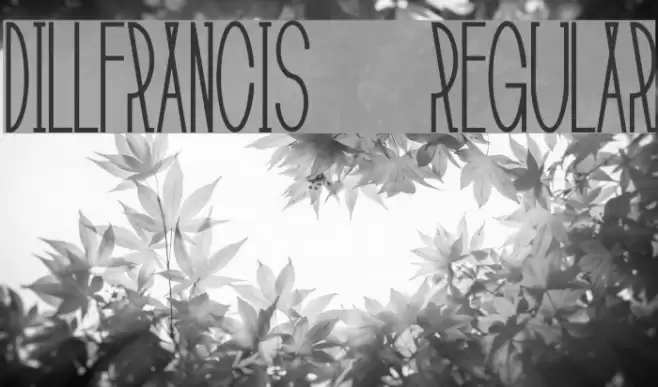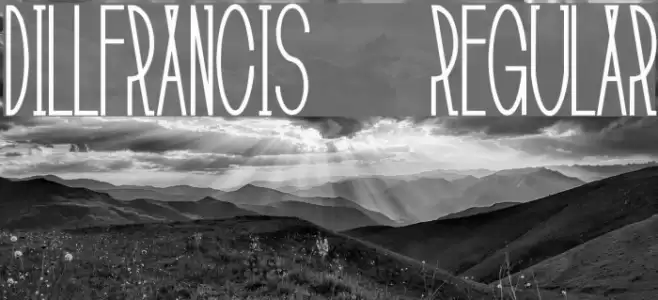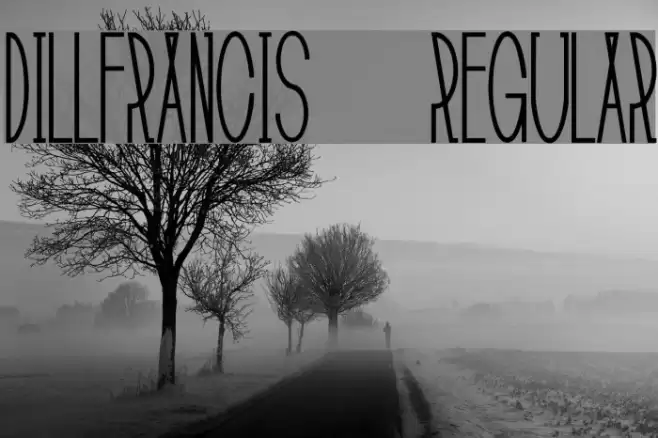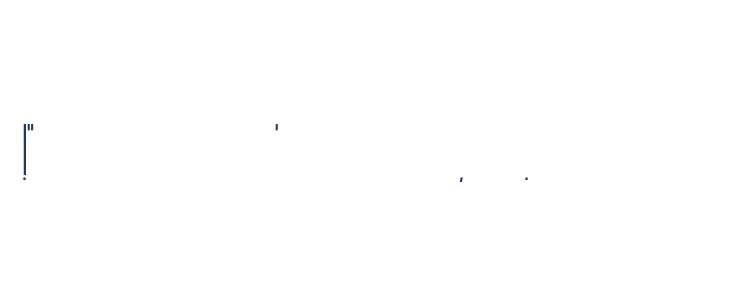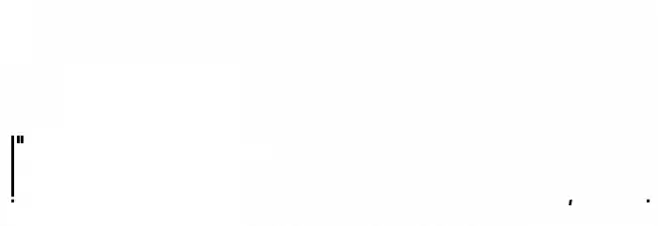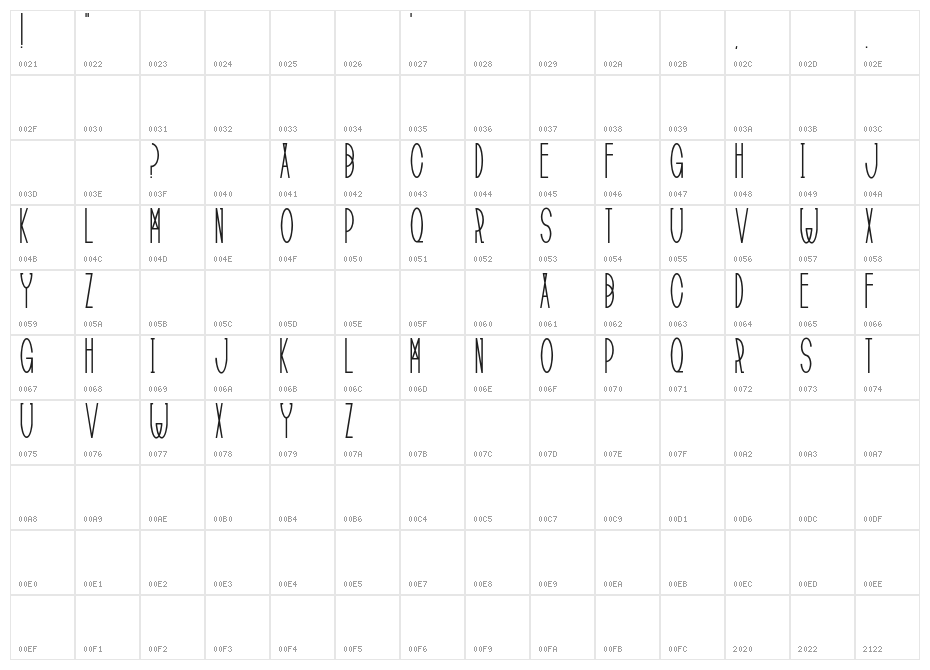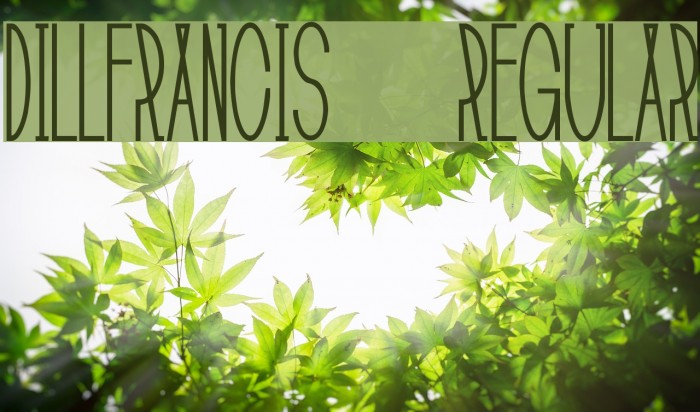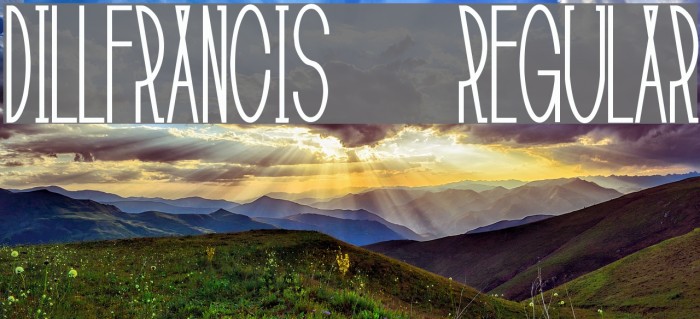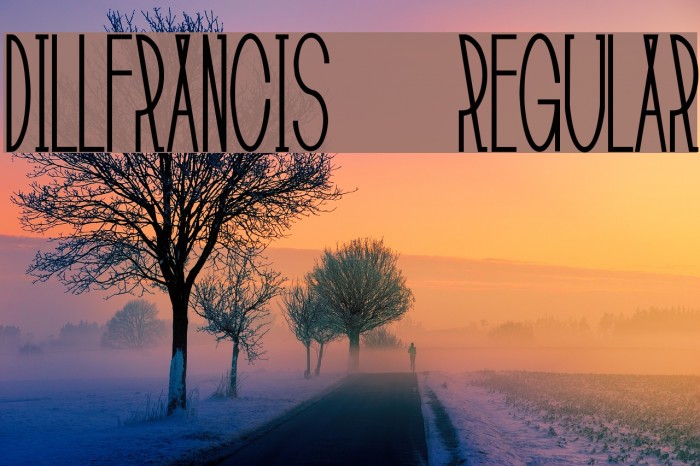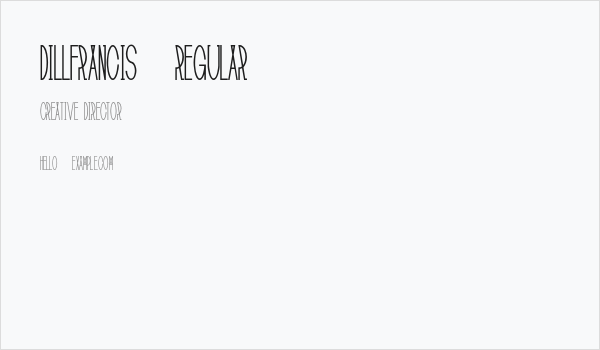
DillFrancis-Regular Font
DillFrancis-Regular Description
This font exhibits a unique and modern style with elongated, narrow characters that create a striking visual impact. The uppercase letters are particularly tall and slender, giving the font a distinctive and elegant appearance. The lowercase letters maintain this elongated form, ensuring consistency throughout the typeface. The numerals and special characters are designed to match the overall aesthetic, contributing to a cohesive look. The font's thin strokes and high contrast between thick and thin lines add to its sophisticated and contemporary feel.
A modern, elongated font with high contrast and narrow characters from Uncategorized fonts.
- Proposed Projects: Ideal for fashion magazines, luxury branding, and modern art posters.
- Character Spacing: Tight